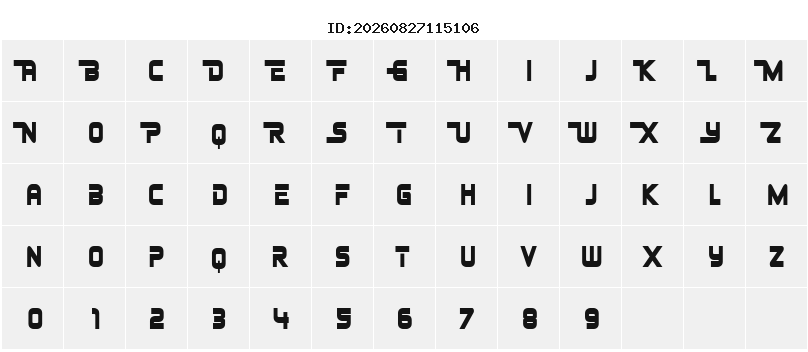
About 224-CAI978.ttf
224-CAI978.ttf is a modern, elegant sans-serif font designed for ultimate readability and visual harmony. Perfect for branding, headlines, web design, and print materials.